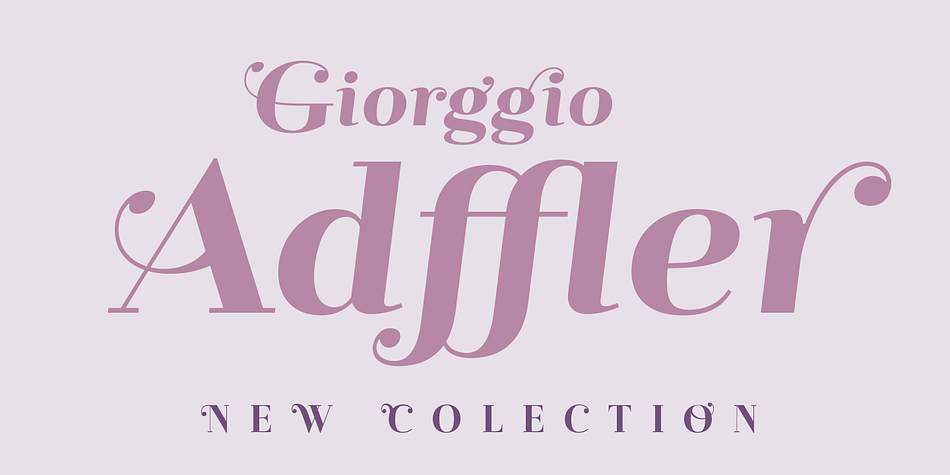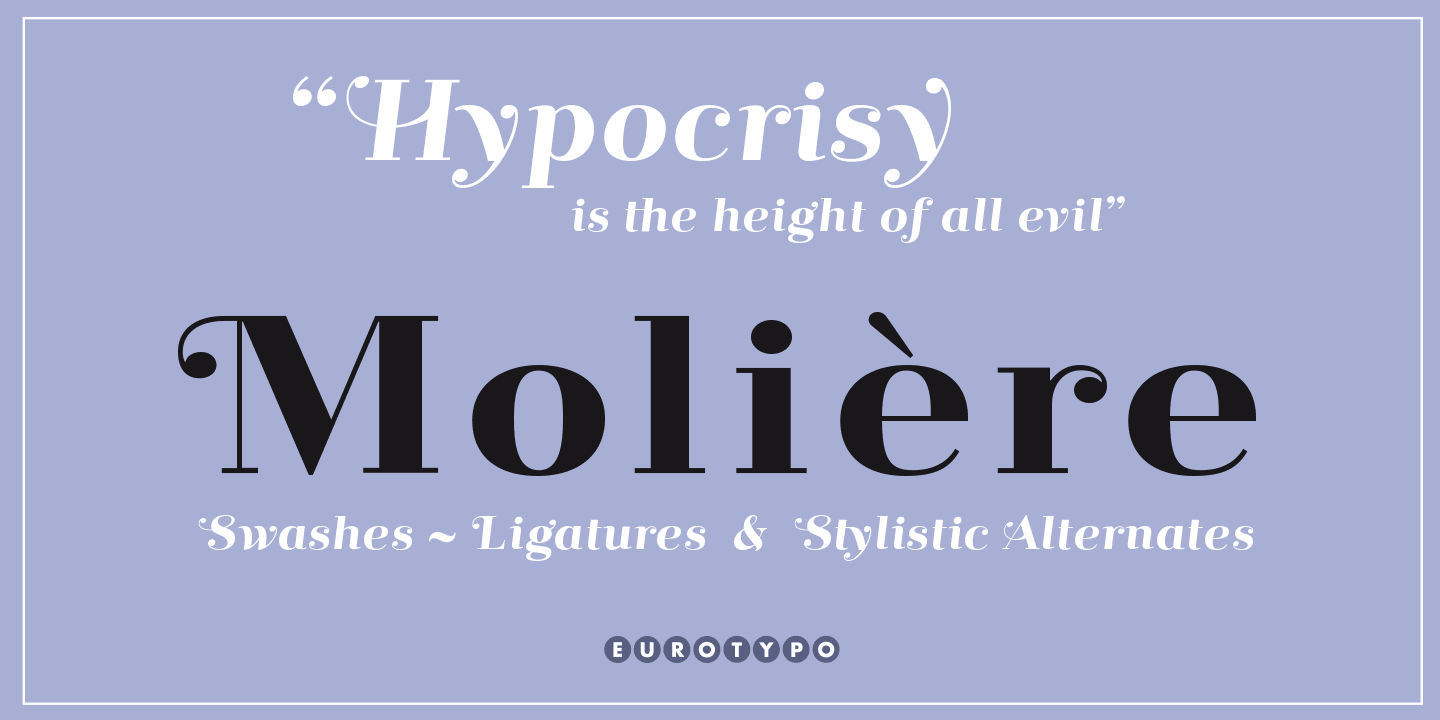
Designed by Olcar Alcaide, Molière is a serif and display serif font family. This typeface has five styles and was published by Eurotypo.
Molière is a classic didone typeface enriched with swashes that gives it personality and dynamism.
Foundry | Eurotypo |
Designer | Olcar Alcaide |